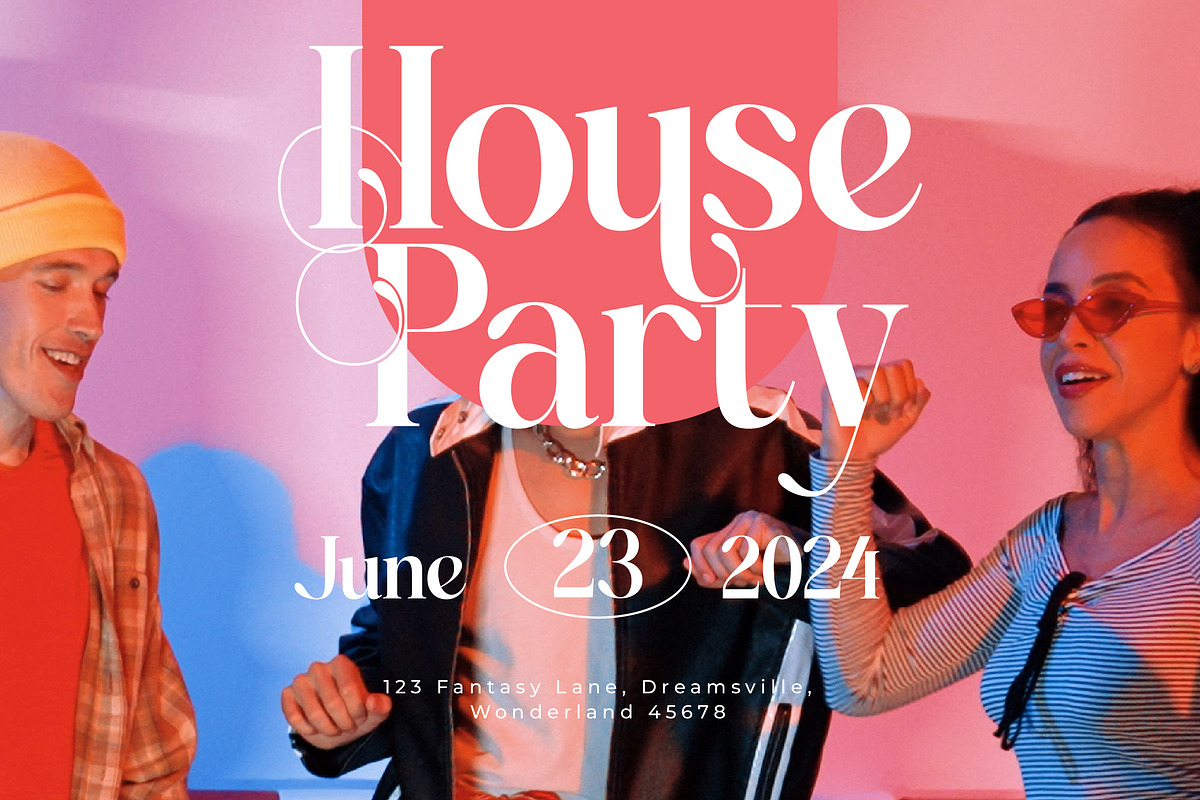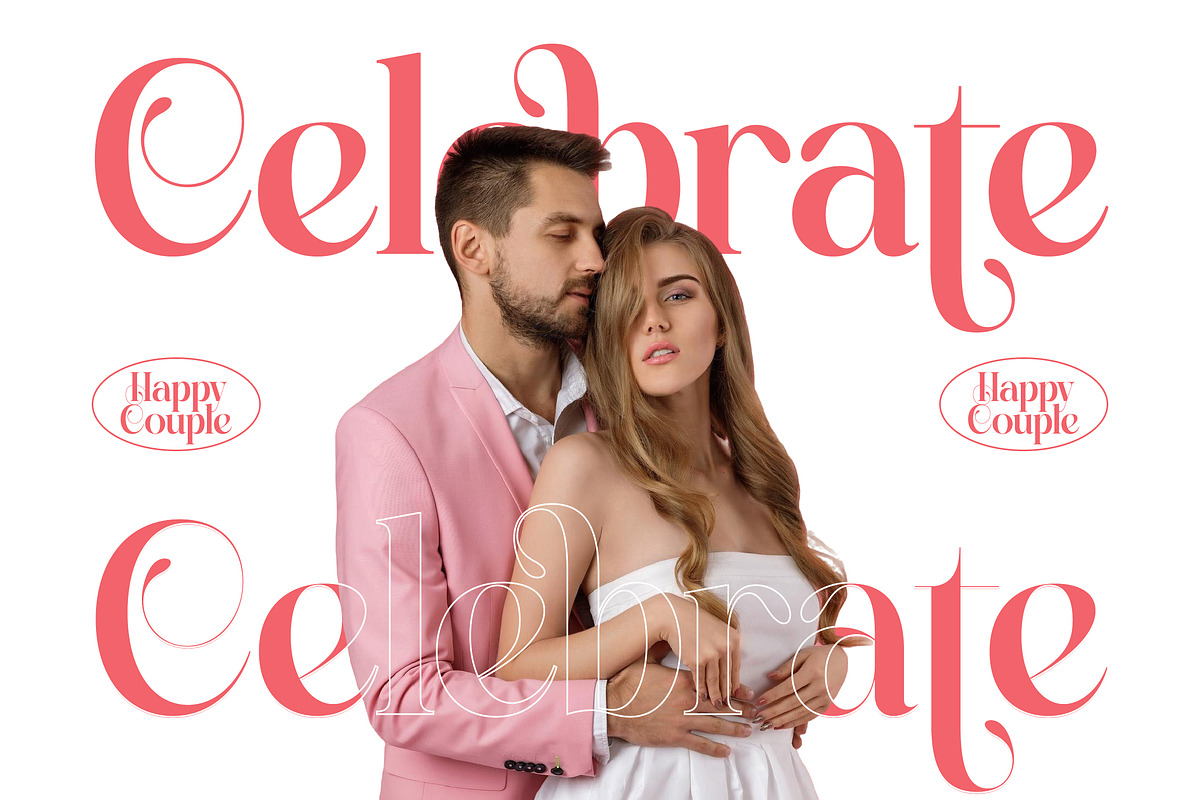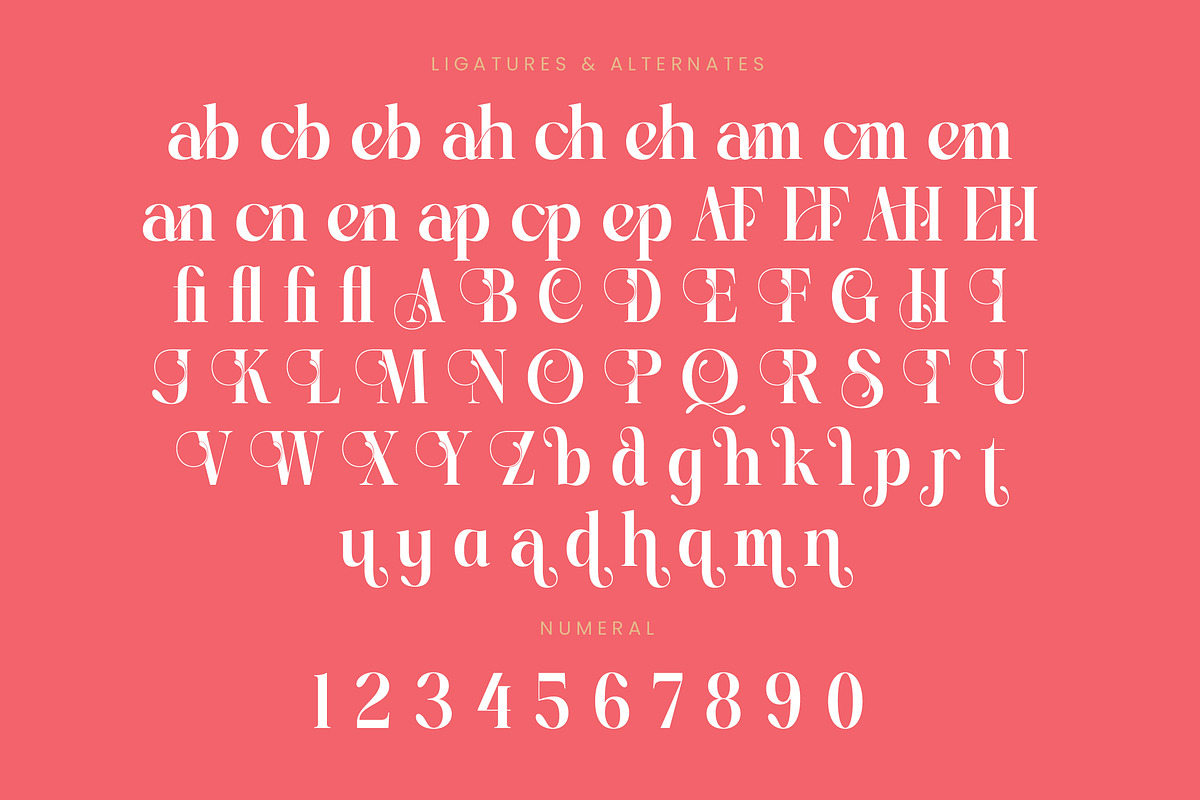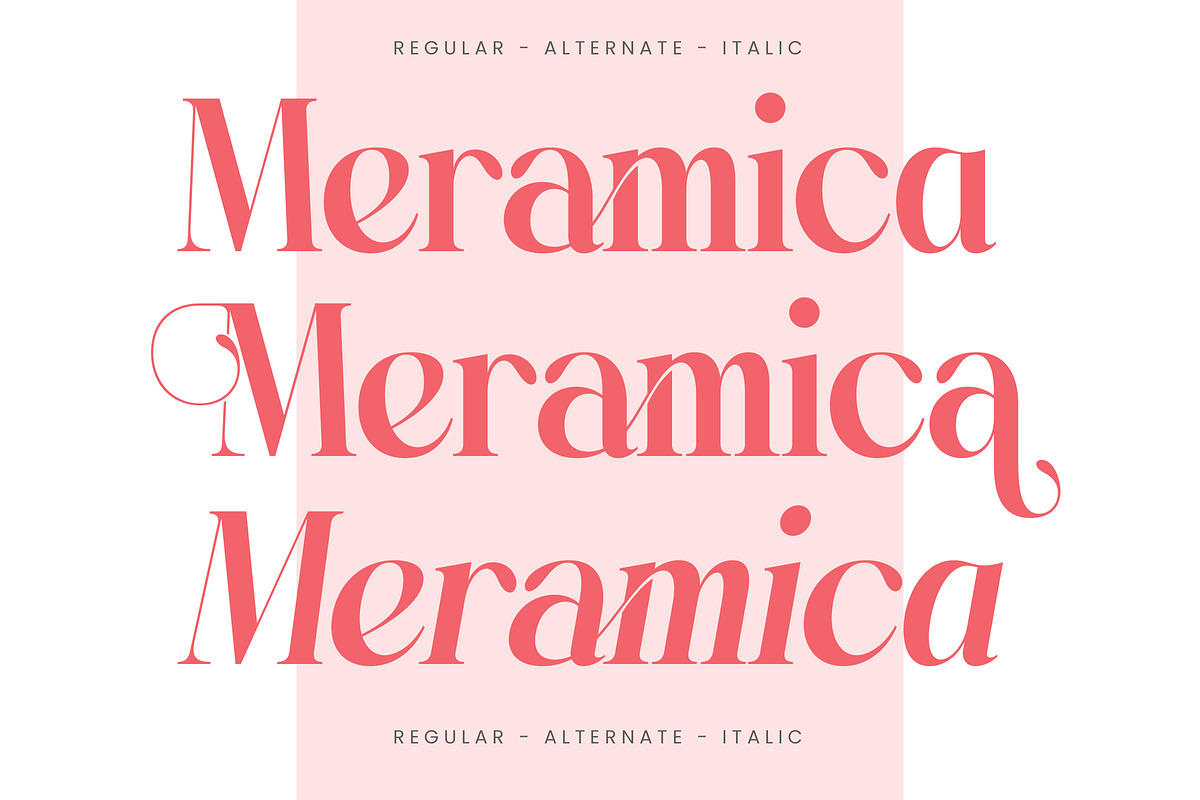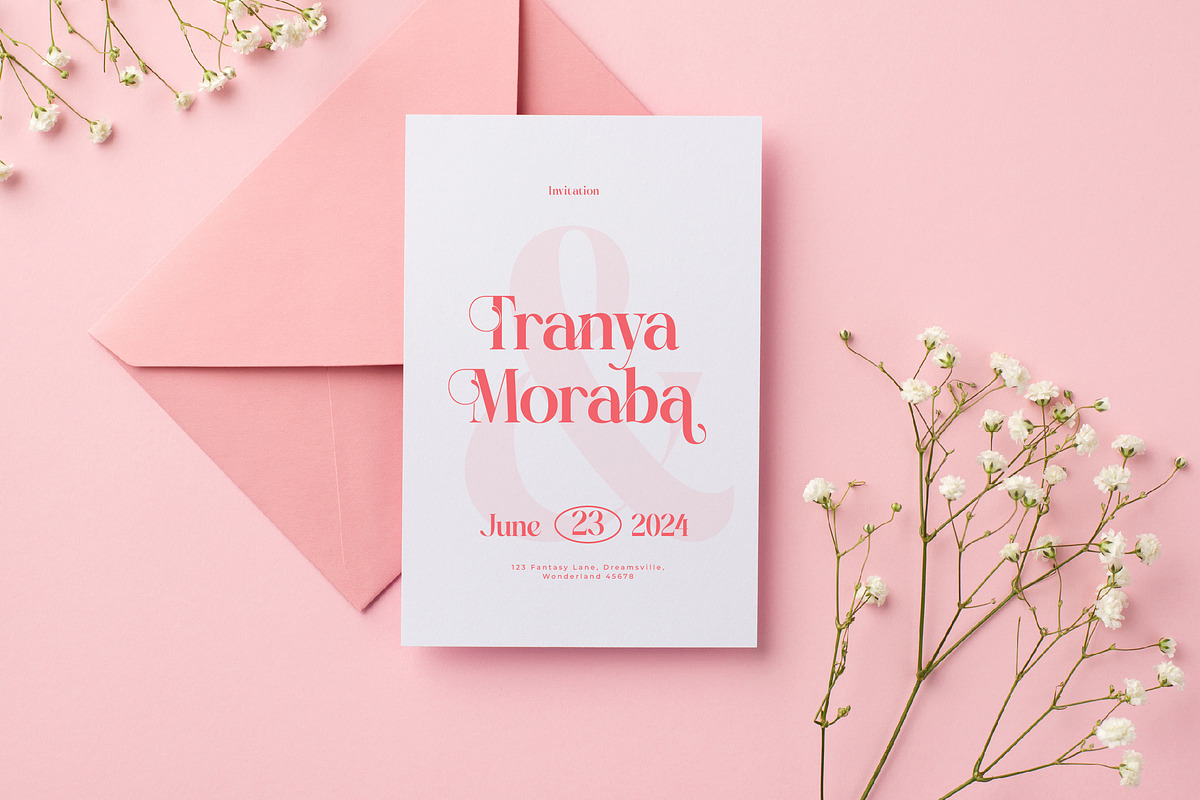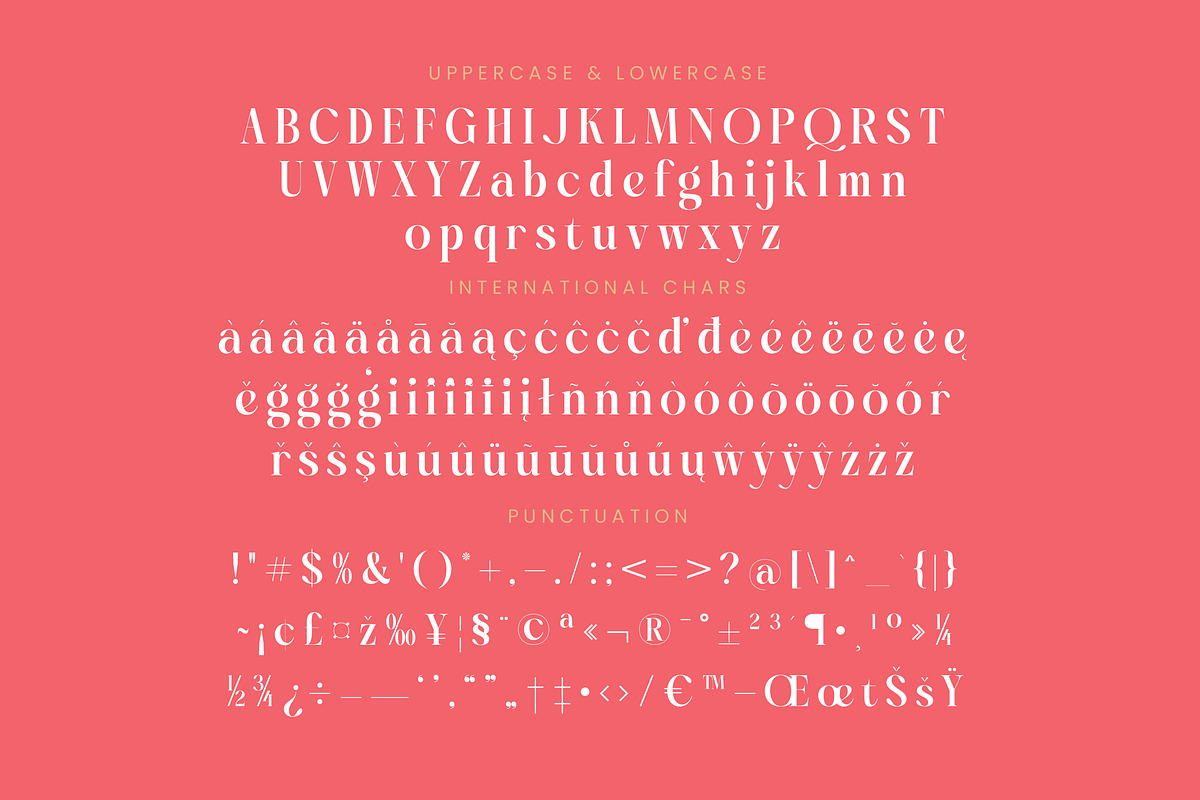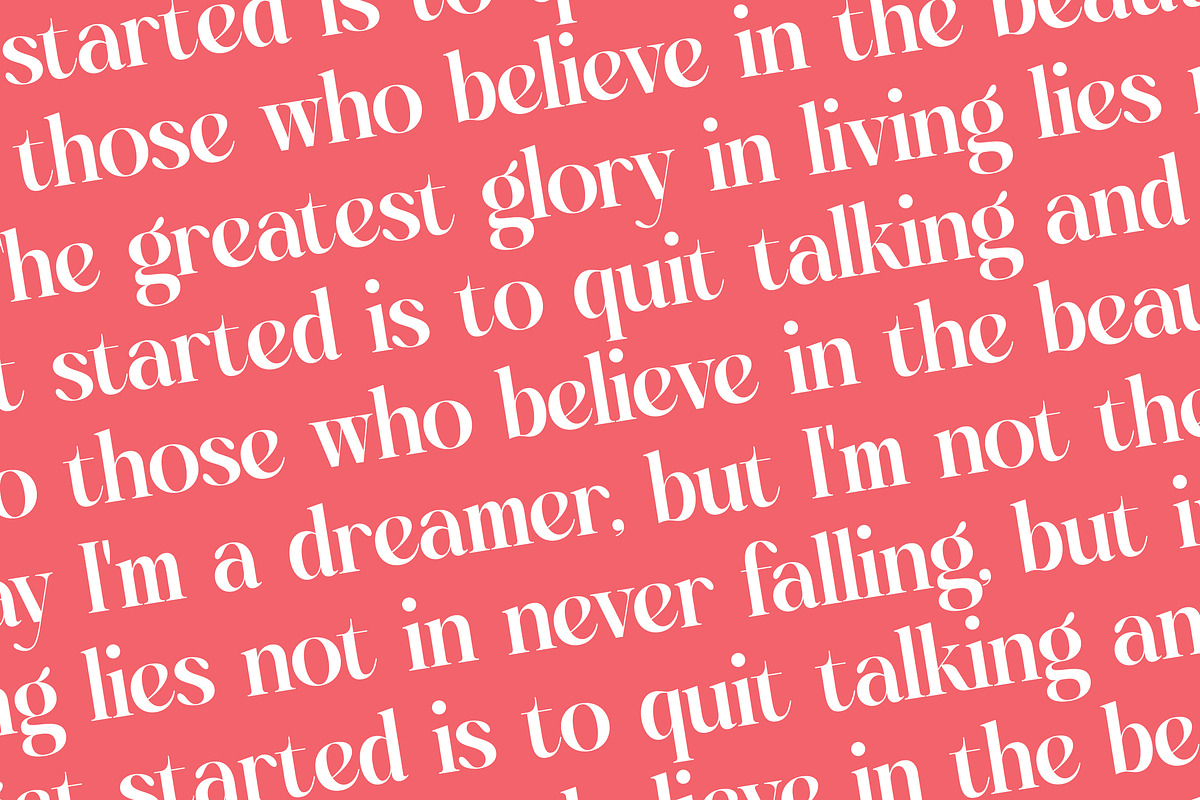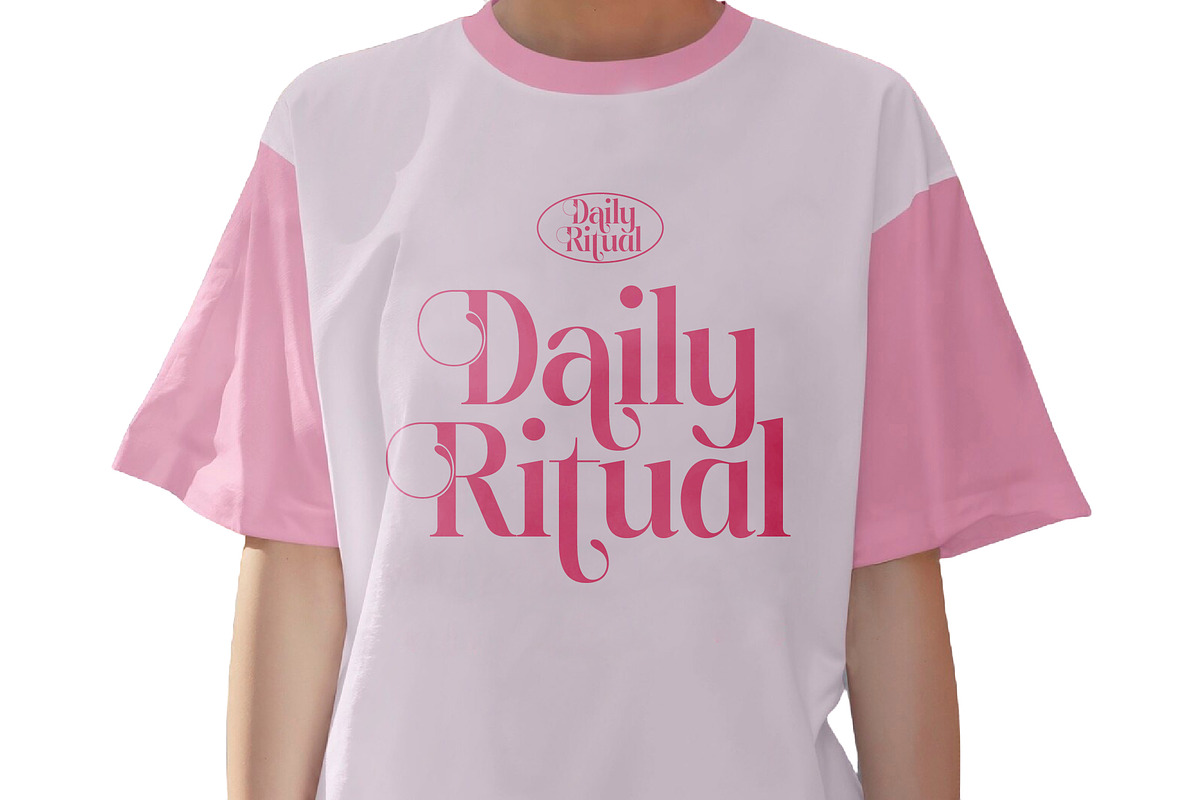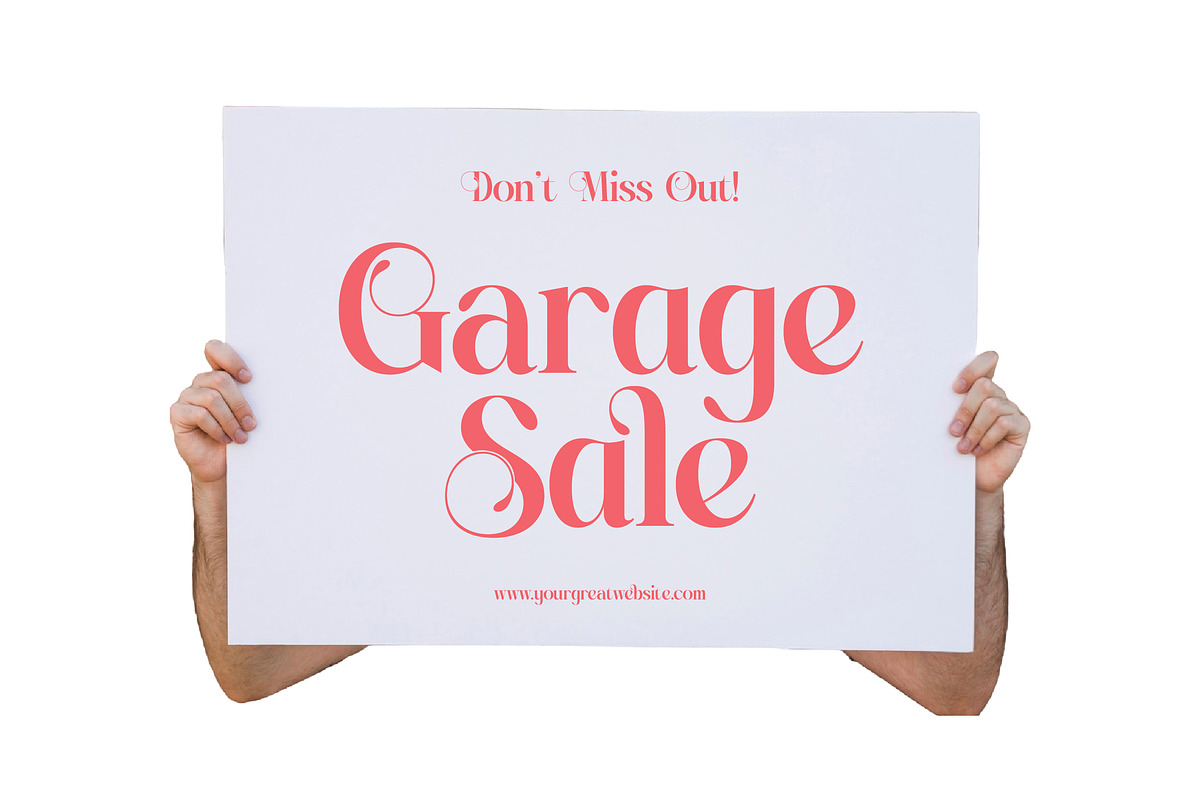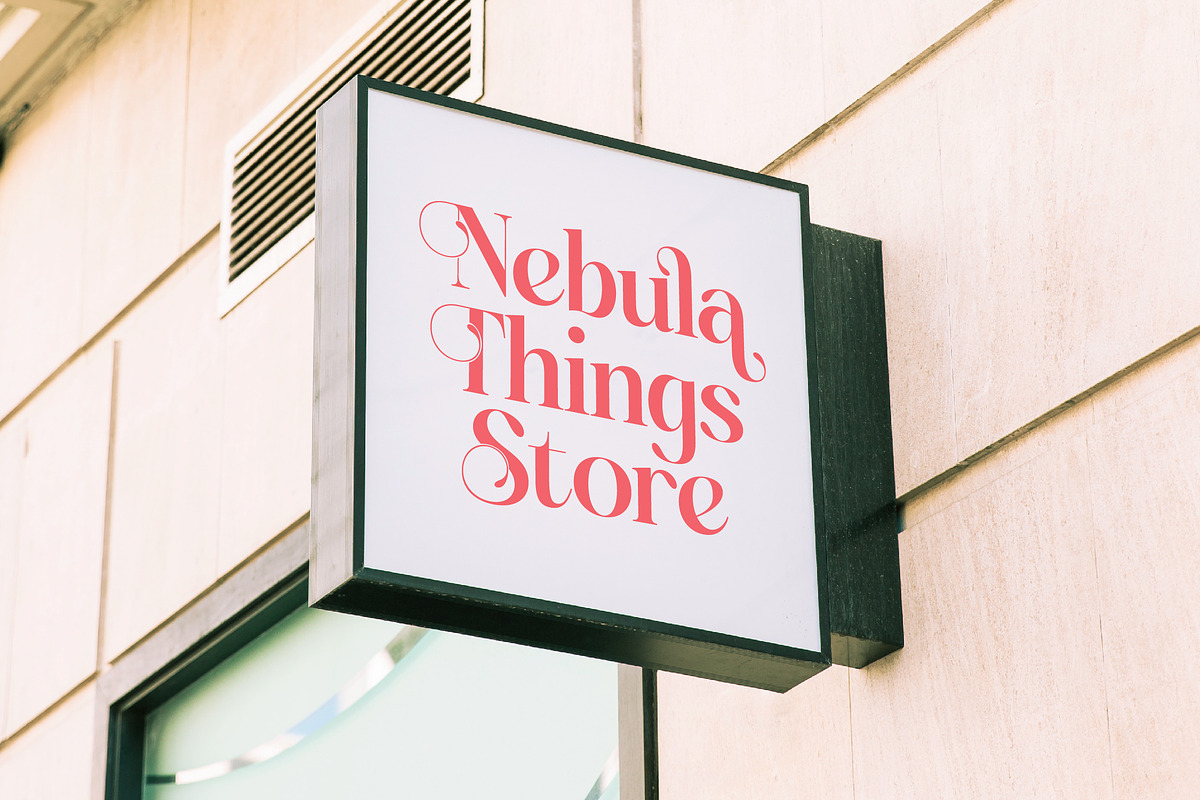
Hantepy Qablema Modern Serif Font
Experience a breath of fresh air with Hantepy Qablema, a typeface that captures the ethereal beauty of a sun-drenched garden through its fluid strokes and graceful curves. This elegant font dances between classic sophistication and contemporary flair, making it the perfect choice for projects that demand a touch of editorial magic.
Inspired by the delicate interplay of light and shadow in nature, the letterforms mirror the organic silhouettes of flower petals and the rhythmic flow of a gentle breeze. It evokes a sense of nostalgic romanticism, reminiscent of golden hour memories and high-end magazine spreads where every detail is curated for beauty.
This modern serif display exudes an effortless luxury typography feel that immediately commands attention across any medium. With its high-contrast serif design and refined proportions, it serves as a powerful editorial font that delivers a lasting and memorable branding impact for discerning clients.
Tapping into the current modern serif trend, this typeface is the perfect answer for creators seeking editorial display fonts that break away from the mundane. It embraces the industry shift towards character-driven typography where every letterform is treated as a piece of art rather than just a functional symbol.
Transform your next creative project into a masterpiece, whether you are crafting a standout logo design or developing a cohesive global branding identity. It is an ideal choice for high-end editorial layouts, premium product packaging, romantic wedding stationery, and avant-garde fashion campaigns that require a distinct visual voice.
This comprehensive font family includes a vast array of ligatures and creative alternates to provide endless customization options for your designs. Flourished swashes add a bespoke, hand-crafted touch, while full multilingual support ensures your message reaches a global audience through its extensive range of international characters.
- Ligature 23 Alternate 44